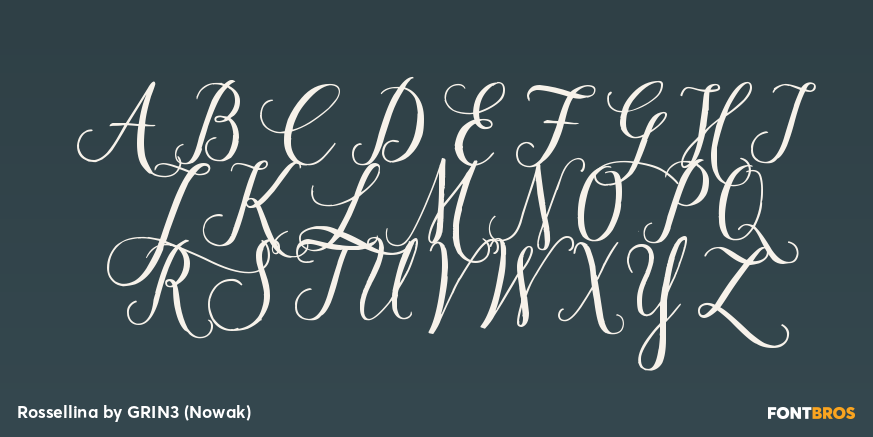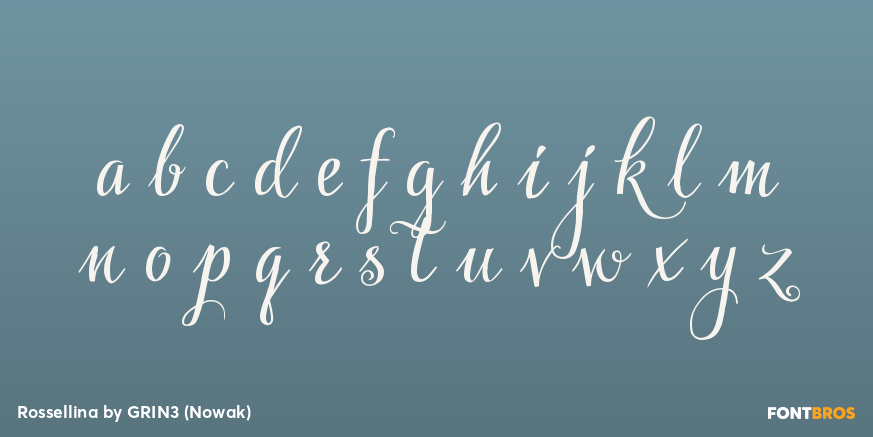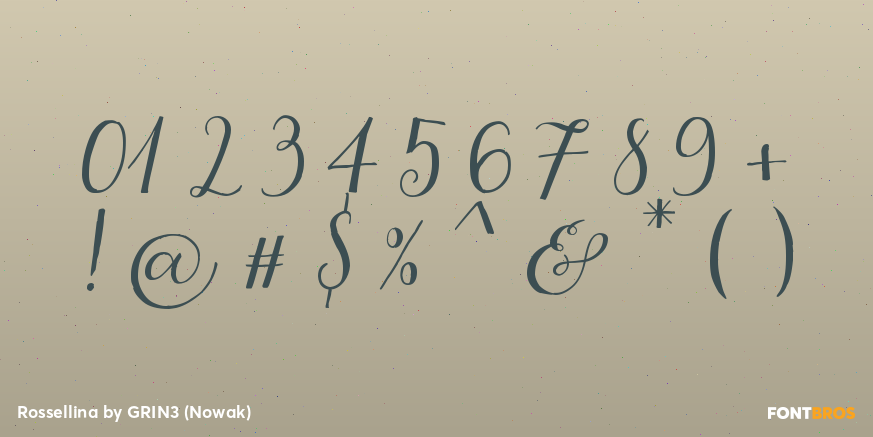
Rossellina
Rosselina is a handwritten, fully connected script with ligatures and contextual alternates to help with flow and readability.
It can be used for invitations, greeting cards, posters, advertising, weddings, books, menus etc.
Every lowercase letter has at least two variations. To get the alternate glyph just add "+" before the letter in any OpenType savvy application or manually select the character from Glyph Palette.
When you type uppercase letters they will change to Small Caps.
Language support includes Western, Central and Eastern European character sets, as well as Baltic and Turkish languages.